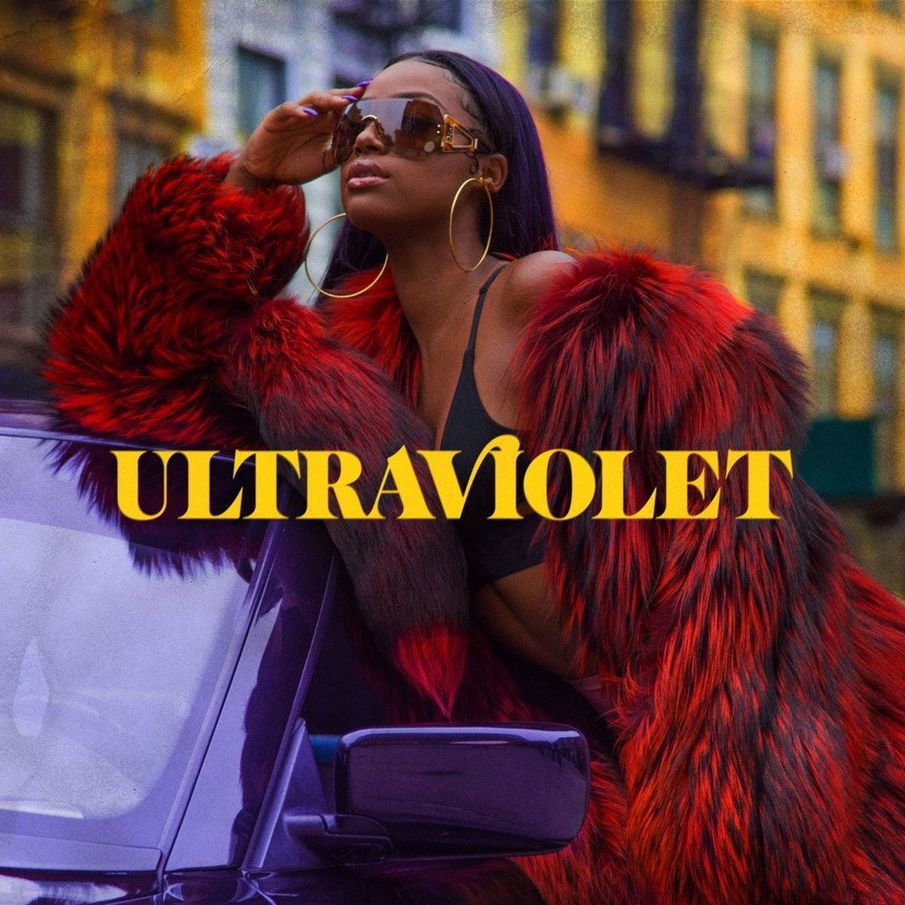
Ultraviolet Font
Fonts in UseUltraviolet is the sixth studio album by American singer-songwriter and actress, Lana Del Rey. It was released on July 13, 2018, and features 13 tracks showcasing Del Rey's signature dreamy, melancholic sound.
On the back cover of the album, both the album title and the tracklist text are written using a font called Cabernet JF, which is a modern adaptation of the vintage phototype Benguiat Caslon, released by Jukebox Collection.